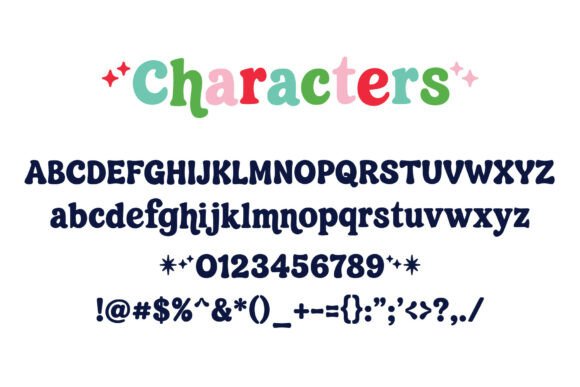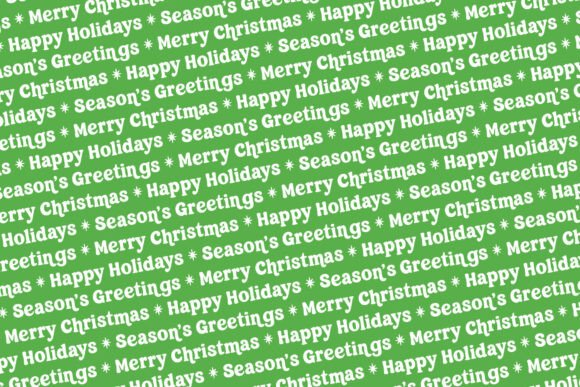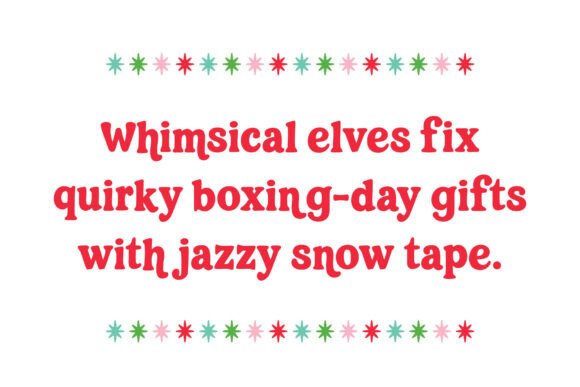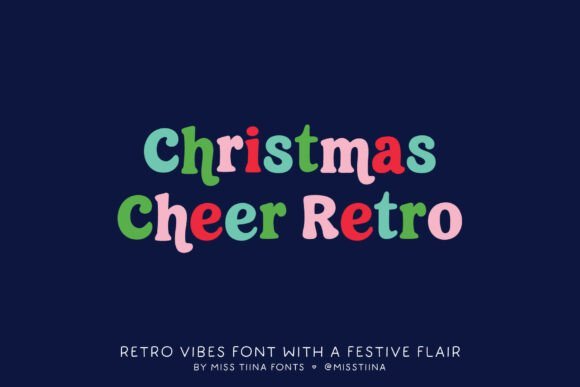
Introduction to Christmas Cheer Retro Font
✨ Bring nostalgic Christmas magic to your designs.
This bold retro serif is cozy, charming, and perfect for cards, crafts, planners, and all your holiday projects 🎄 Embrace the nostalgic warmth of the holidays with the MTF Christmas Cheer Retro typeface, a playful and chunky display font with a distinct 70s flair.
Key Features of Christmas Cheer Retro Font
Why Choose Christmas Cheer Retro Font?
Christmas Cheer Retro Font offers exceptional quality and versatility, making it a valuable addition to your design toolkit. Whether you’re creating for personal projects or commercial use, Christmas Cheer Retro Font delivers professional results.